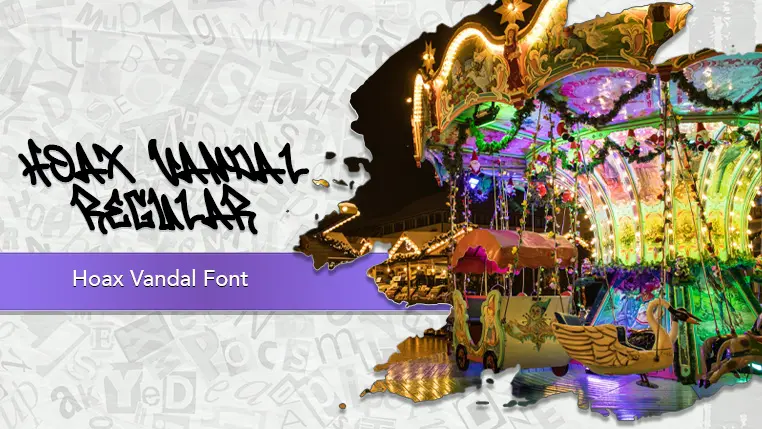
The Hoax Vandal font family may be ideal for you if you enjoy working on an artistic design project. The lively, expressive look of this typeface, which was created by Cikareotype Studio, makes it ideal for Social Media Graphics, Merchandise Design. It's a great font for creating impactful headlines and visuals on platforms like Instagram and TikTok that have a modern, youthful vibe. Its bold, street-art style is perfect for grabbing attention, especially for events like concerts, festivals, or art exhibitions. and other light-hearted visual projects.
Regular are the one primary font styles of the Hoax Vandal font family. You may build dynamic, visually appealing text layouts with the distinct flair that each style offers. With crisp, readable lines and a relaxed tone.